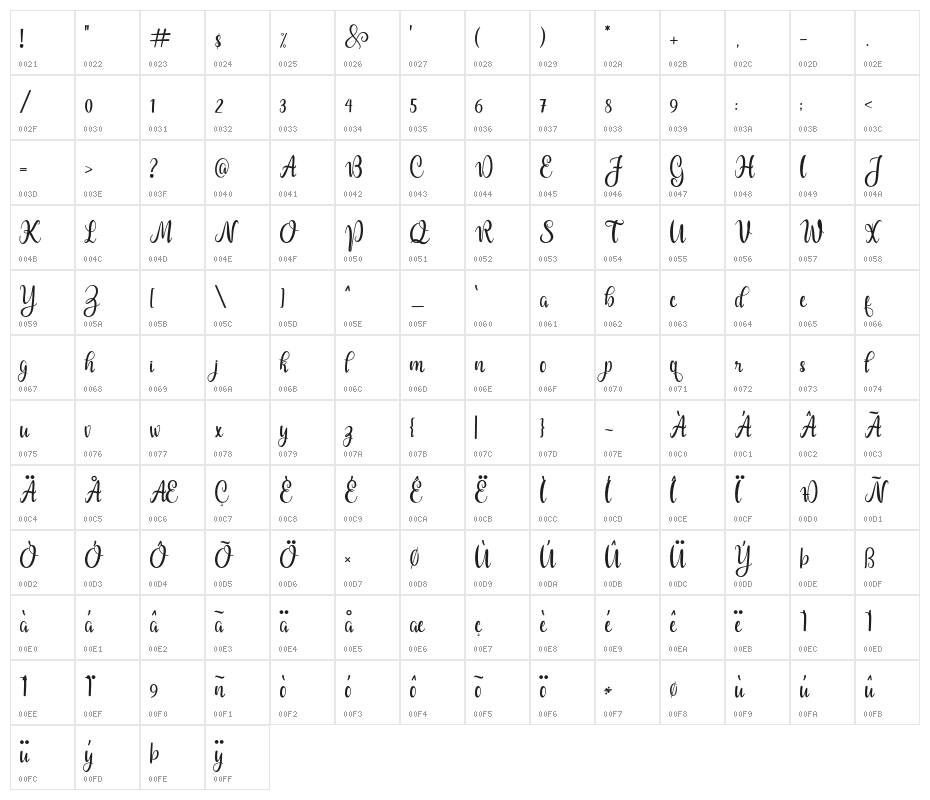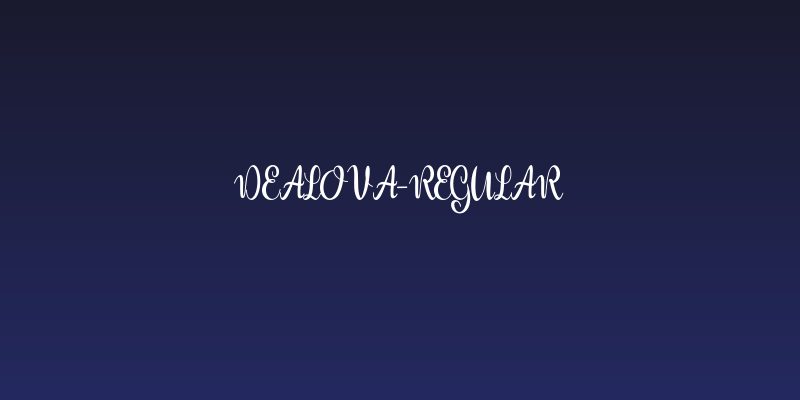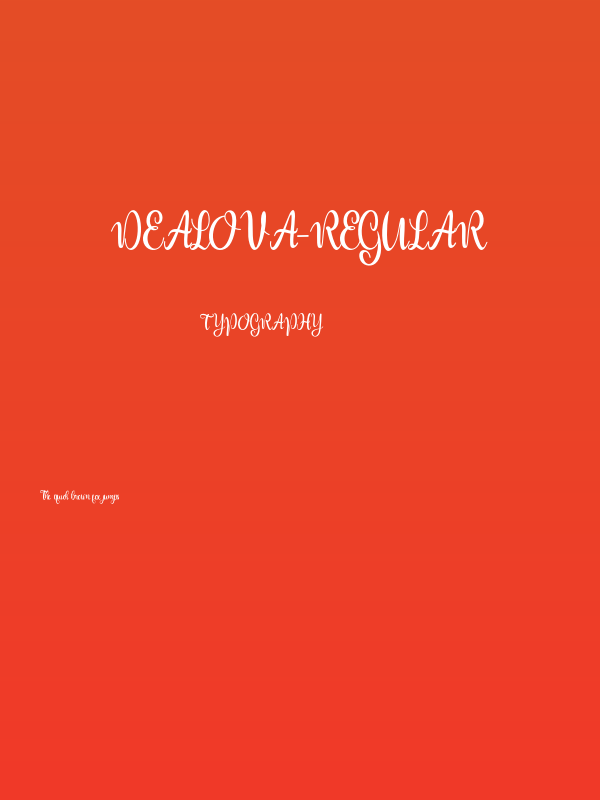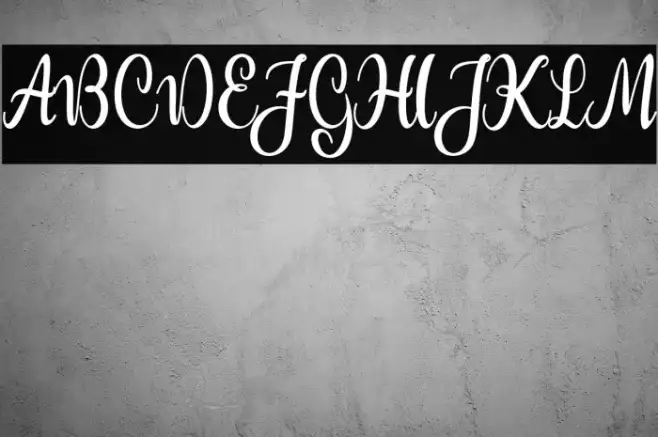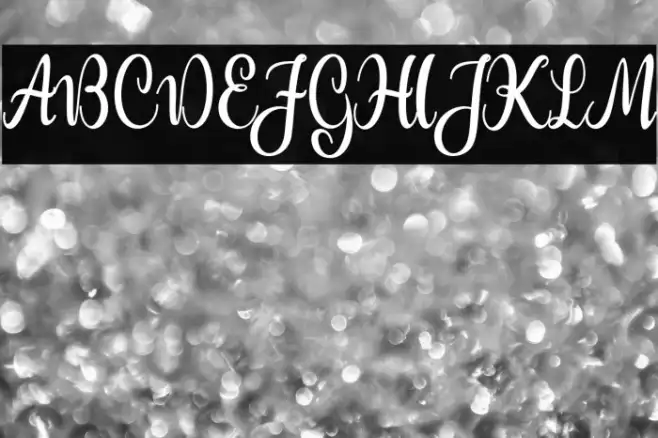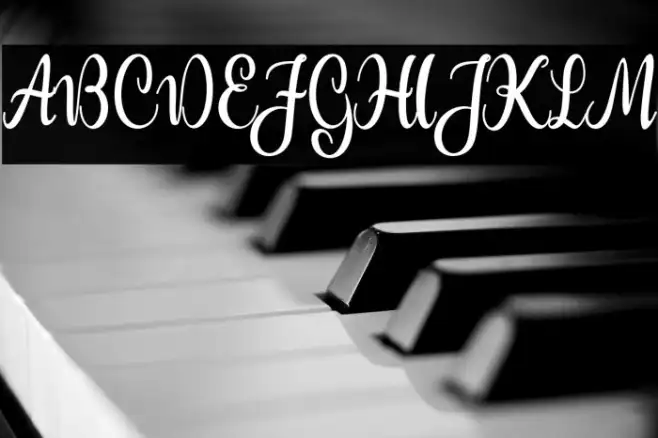
Dealova-Regular Font
Dealova-Regular Description
This font features an elegant and flowing script style, characterized by its graceful curves and loops. The uppercase letters are ornate, with distinctive flourishes that add a touch of sophistication. The lowercase letters maintain a consistent style, offering a harmonious blend of readability and decorative appeal. Numbers and special characters are designed to complement the overall aesthetic, making it suitable for a variety of creative applications. The font's design is both artistic and functional, ideal for projects that require a personal and stylish touch.